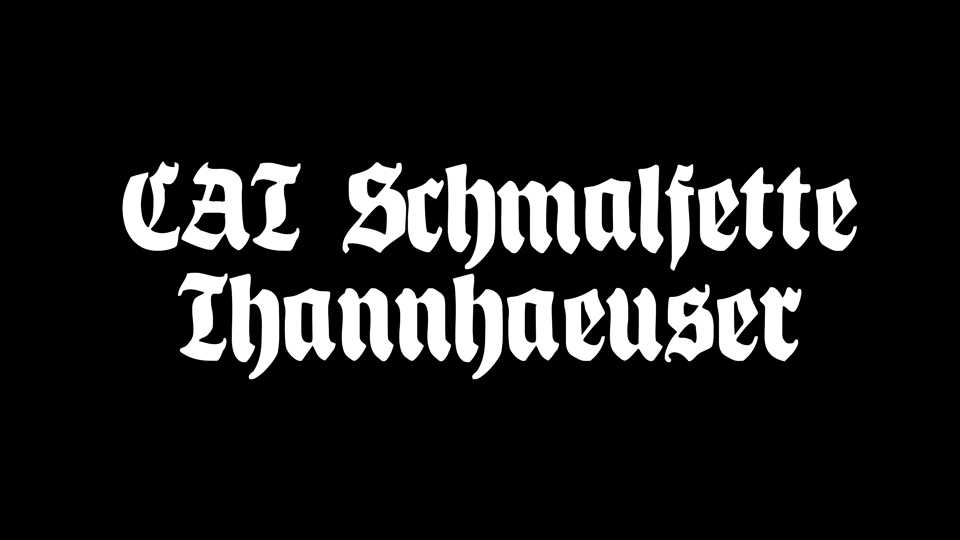
Download Schmalfette Thannhaeuser font, a blackletter typeface. This font is suitable for logos, tattoo, headlines, posters and other authentic design.